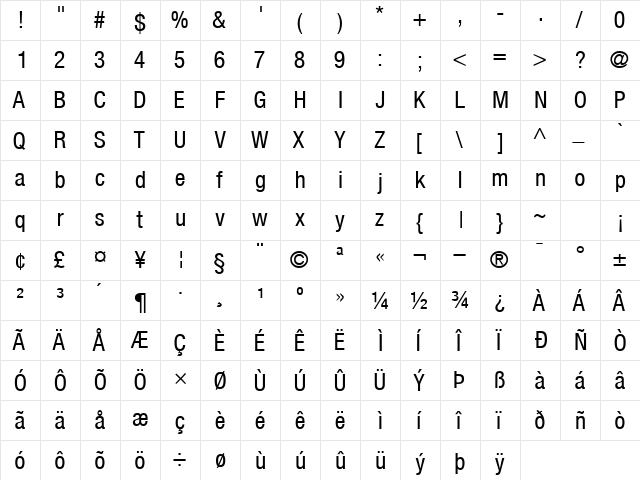
ContextRepriseCondSSK Regular
Design Context for ContextRepriseCondSSK Typeface
ContextRepriseCondSSK is a composed and adaptable typeface that performs quietly and consistently across a wide range of design contexts. The condensed width makes it efficient for tight spaces without sacrificing legibility.